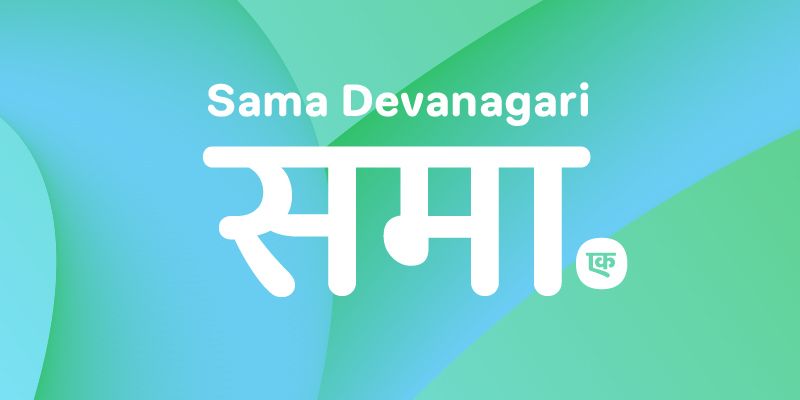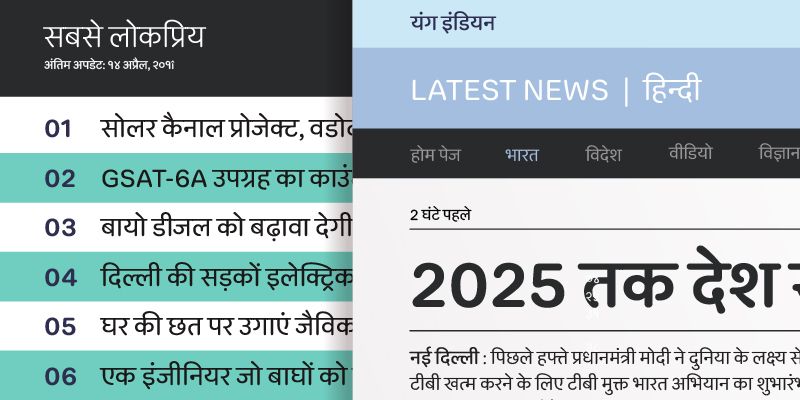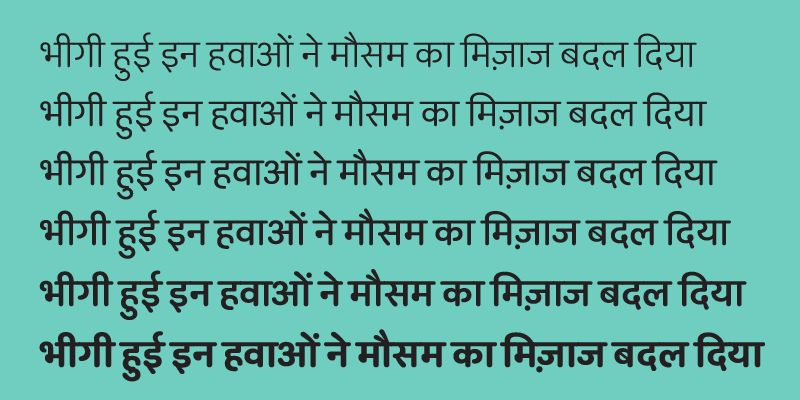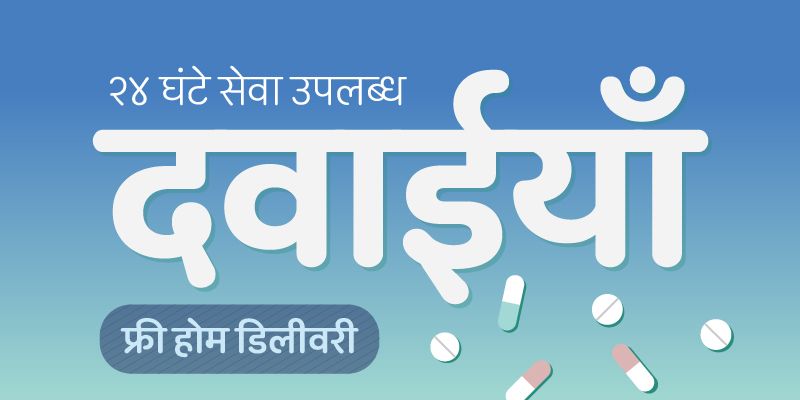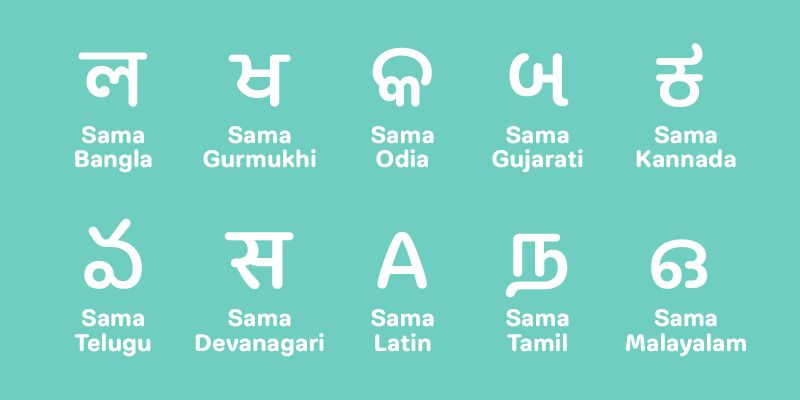
On the surface, Sama is an unassuming mono linear typeface with rounded terminals. But, with genial curves that gently billow its forms, Sama breathes new life into a sedate and saturated genre. Despite its closed counters, such subtle gestures in lighter styles lend each page a certain weightlessness; as Sama balloons in weight, these features bounce around with a youthful verve. These traits are designed to echo across multiple Indian scripts. So no matter the language, Sama (meaning natural ambience in Hindi) is an amiable space to house your message.